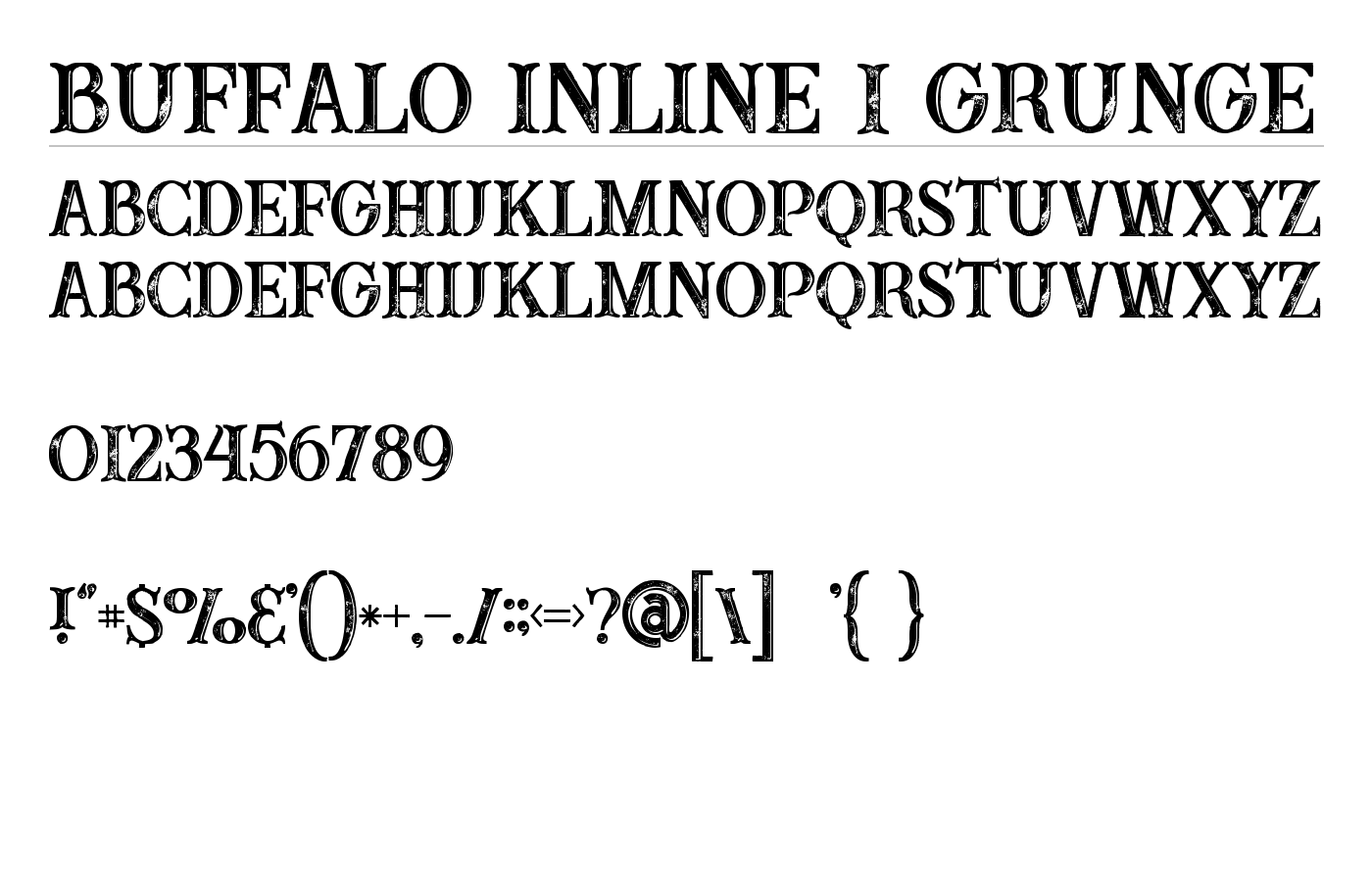
Buffalo Inline 2 Grunge is a bold, serif display font with a distinctive vintage western vibe, characterized by its sharp serifs and inline detailing that adds depth and texture. Its grunge effect gives a worn, distressed look, making it perfect for designs seeking an edgy, rustic, or retro feel. This font works best for headlines, logos, posters, and packaging where a strong, attention-grabbing style is desired.
Buffalo Inline 2 Grunge Font
About Buffalo Inline 2 Grunge Font
| Font family | Buffalo Inline 2 Grunge Font |
| Designer | cruzine |